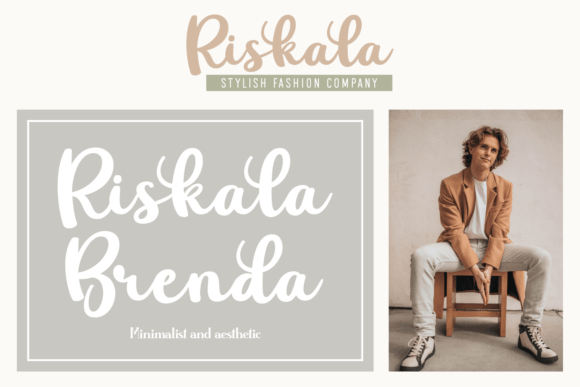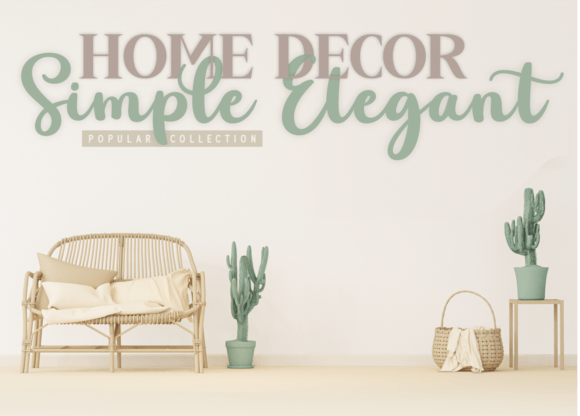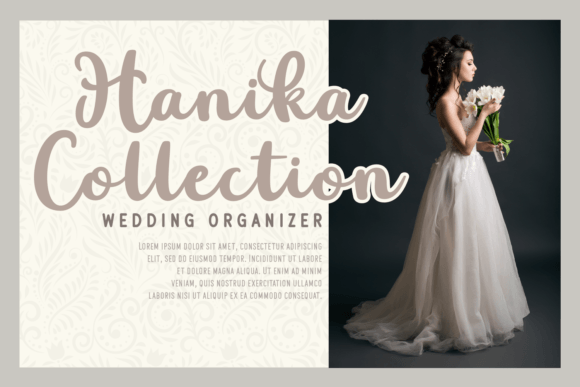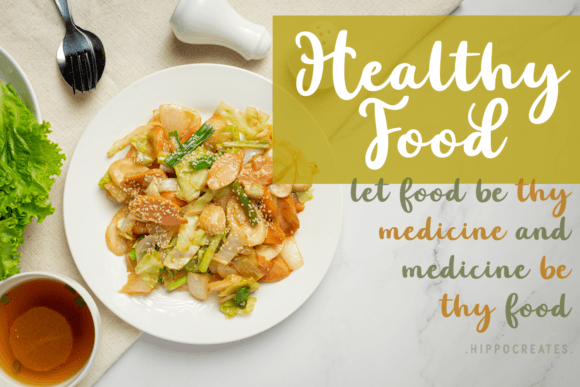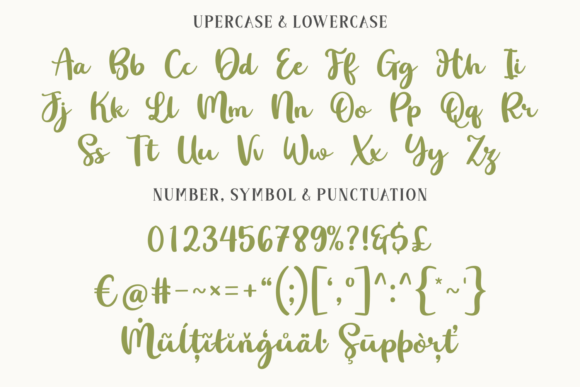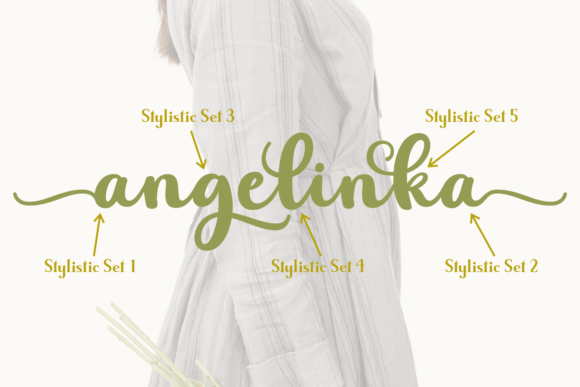
Barkaty Font: Elevate Your Designs with Elegance and Sophistication
In the world of typography, a well-crafted font can make all the difference in elevating your designs to new heights. Introducing Barkaty Font, an exquisite handwritten font that is sure to capture your heart. With its perfect blend of classy calligraphic influences and contemporary flair, Barkaty is the ultimate choice for designers and crafters looking to add a touch of elegance and sophistication to their projects.
The Story Behind Barkaty Font
Barkaty Font is a masterpiece of modern typography, carefully crafted to provide a unique and refreshing aesthetic to your designs. Its creator, with a keen eye for detail and a deep understanding of typographic nuances, has poured their heart and soul into designing a font that is both beautiful and functional. The result is a font that exudes a sense of luxury, refinement, and poise, making it perfect for a wide range of applications, from branding and advertising to packaging and digital media.
Key Features of Barkaty Font
So, what makes Barkaty Font so special? Here are just a few of its key features:
- Handwritten with love: Barkaty Font is a true handwritten font, with each letter carefully crafted to convey a sense of warmth and personality.
- Classy calligraphic influences: The font’s calligraphic roots are evident in its elegant strokes, refined letterforms, and sophisticated flair.
- Contemporary and fresh: Despite its classic influences, Barkaty Font feels modern and up-to-date, making it perfect for designers looking to create fresh and innovative designs.
- Highly versatile: Whether you’re working on a branding project, a website, or a craft project, Barkaty Font is the perfect choice for adding a touch of elegance and sophistication.
Why Choose Barkaty Font?
With so many fonts to choose from, why should you choose Barkaty Font for your next project? Here are just a few compelling reasons:
- Stand out from the crowd: With its unique blend of classic and contemporary influences, Barkaty Font is sure to help your designs stand out from the crowd.
- Elevate your brand: If you’re looking to create a luxurious and sophisticated brand image, Barkaty Font is the perfect choice.
- Add a personal touch: The font’s handwritten nature makes it perfect for adding a personal touch to your designs, whether you’re creating a wedding invitation or a social media graphic.
- Easy to use: Barkaty Font is incredibly easy to use, with a simple and intuitive design that makes it easy to get started.
Using Barkaty Font in Your Designs
So, how can you use Barkaty Font in your designs? Here are just a few ideas to get you started:
- Branding and advertising: Use Barkaty Font to create stunning brand identities, advertisements, and marketing materials that exude elegance and sophistication.
- Digital media: Add a touch of luxury to your website, social media graphics, or email marketing campaigns with Barkaty Font.
- Crafting and DIY projects: Use Barkaty Font to create beautiful and unique craft projects, such as wedding invitations, party decorations, or handmade cards.
- Packaging and product design: Elevate your product packaging and design with Barkaty Font, perfect for luxury brands, food and beverage companies, or high-end retailers.
In conclusion, Barkaty Font is an exquisite handwritten font that is sure to capture your heart. With its perfect blend of classy calligraphic influences and contemporary flair, it’s the ultimate choice for designers and crafters looking to add a touch of elegance and sophistication to their projects. Whether you’re working on a branding project, a website, or a craft project, Barkaty Font is the perfect choice for elevating your designs to new heights.